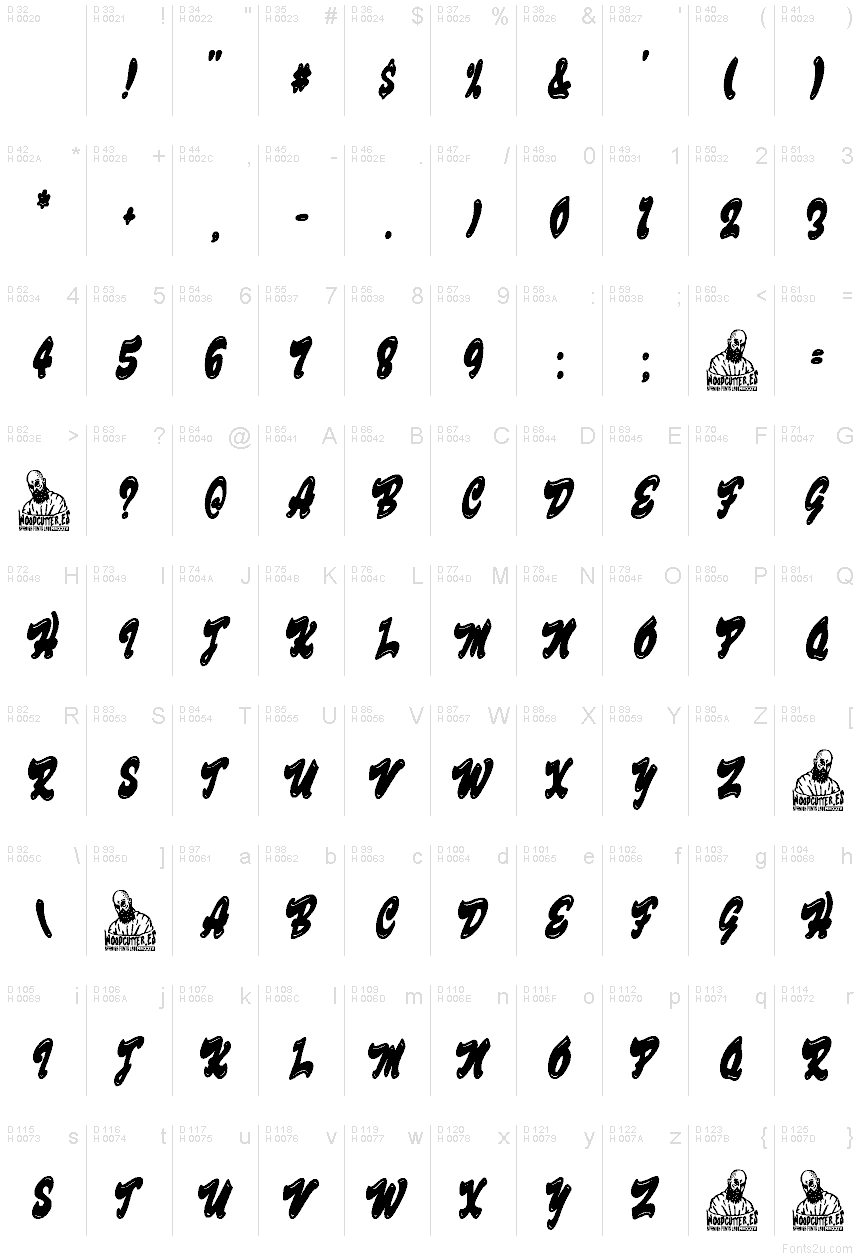
Fine NYC Shop
Fine NYC Shop font by Woodcutter is a free bold groovy brush display font. It stands out with glossy, paint-swollen strokes that bulge and taper like wet ink caught mid-swish, giving each letter a splashy, streetwise swagger. The rhythm is bouncy but legible, with rounded terminals and chunky curves that feel tactile—almost sticker-like—when blown up.
Using Fine NYC Shop, headlines jump off posters, streetwear tags, food-truck menus, festival banners, vinyl sleeves, and beverage labels. This free font thrives at large sizes, where the inky texture and lively swing read loud and clear; add a touch of tracking to let the blobs breathe. For balance, pair it with a clean condensed sans in small copy to keep the vibe punchy, not chaotic.